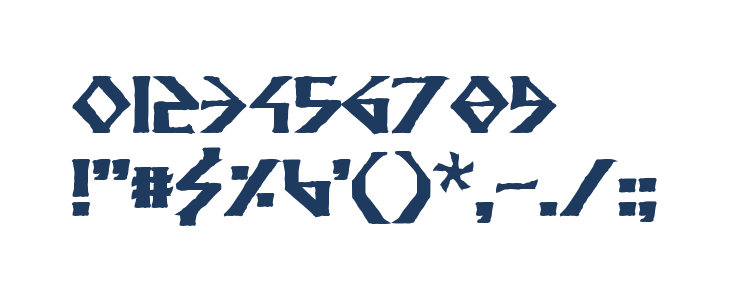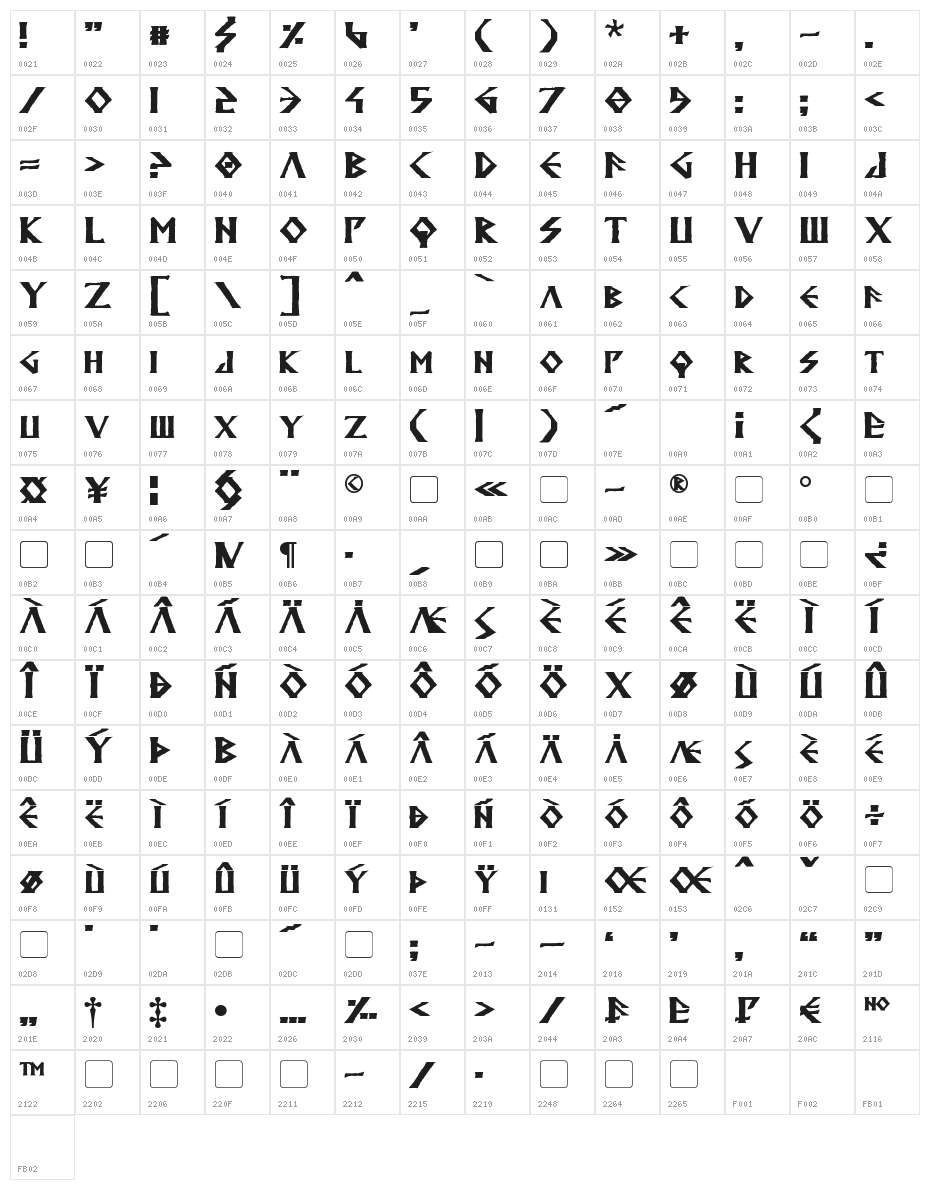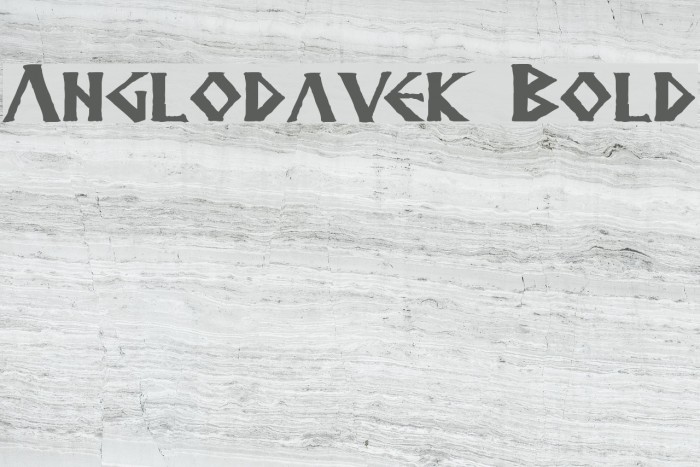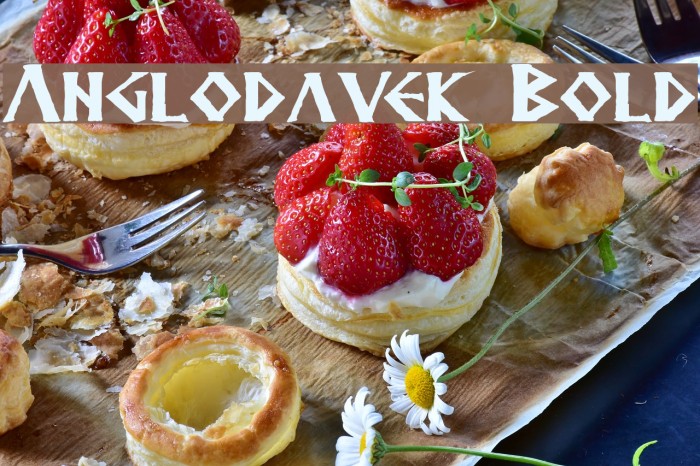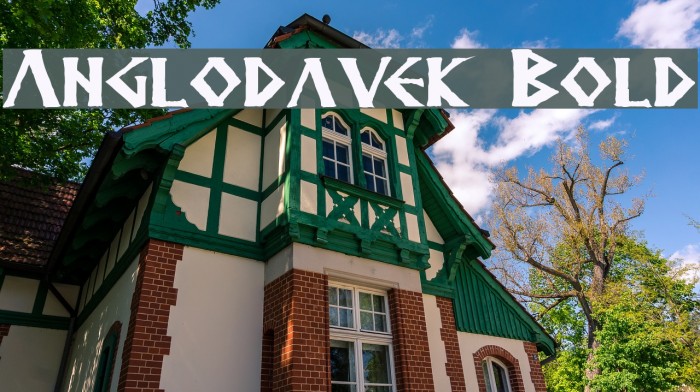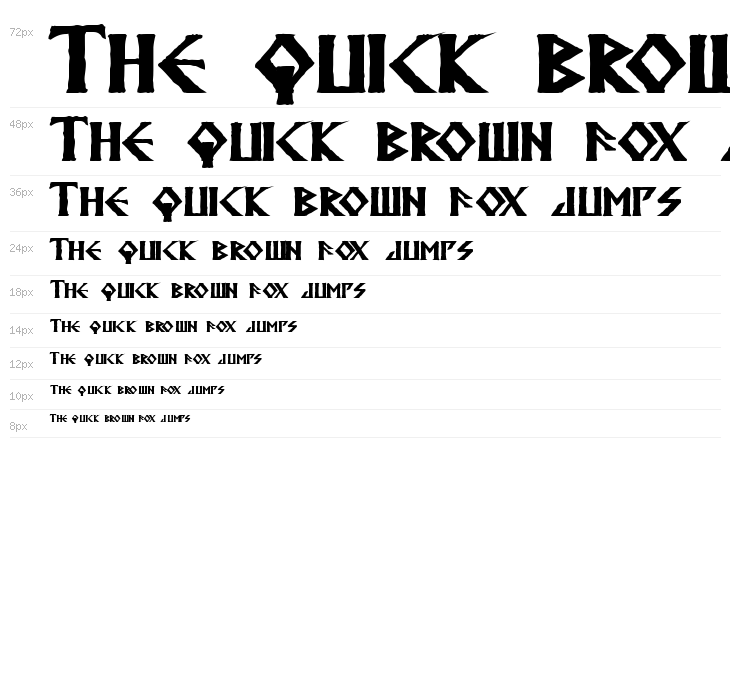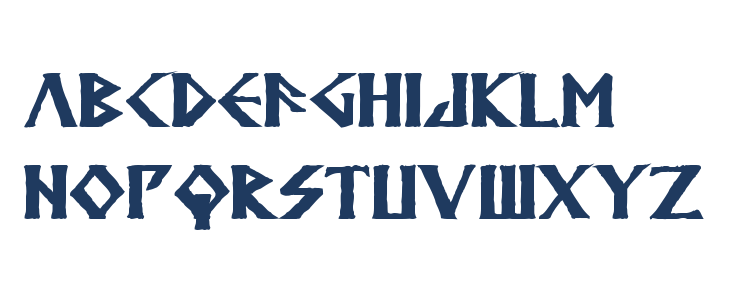
Anglodavek Bold Font
Anglodavek Bold Description
This font features a bold and angular design, characterized by sharp edges and a geometric structure. The letters are crafted with a distinct, almost futuristic style, where each character appears to be carved out with precision. The uppercase and lowercase letters maintain a consistent design ethos, with a focus on symmetry and balance. Numbers and special characters follow the same angular theme, providing a cohesive look across all elements. The font's unique style makes it stand out, offering a modern and edgy aesthetic.